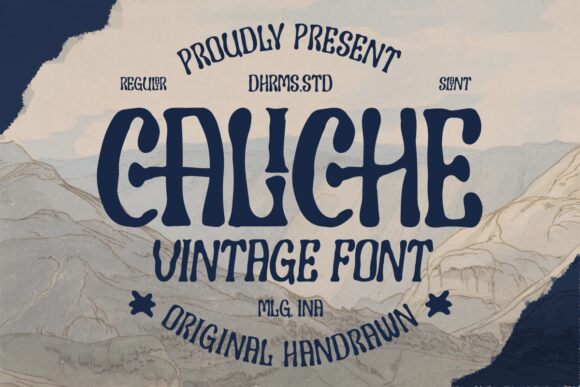
Caliche font by Dharmas Studio is a free display font with a distorted and condensed width. The typeface carries a retro vibe showcased in its distinctive characters and organic shapes. Whimsical and expressive, the font with its clean lines brings together an artistic look that does not however undermine its legibility, making it enjoyable to read.
This font is available for free as the perfect choice for product labels, food packaging designs, video games, movie covers, magazines titles, social media posts. Entertain your audience with posters that carry bright shades of semi-psychedelic colors where all the mysticism stands out more than ever before!